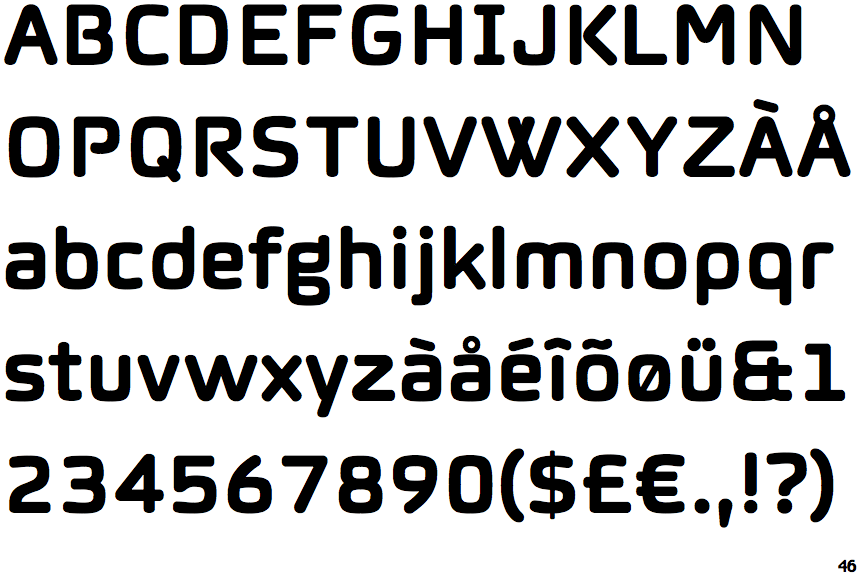
Norway Round Font . Web treat yourself to noway round offered for free by designer atipo ®. Web noway round font family designed by atipo has a total of 2 different styles.
Originally designed as corporate signage typography for london luton airport. Thin, light, regular, medium, bold & italics and a pack of 159 icons for. Web noway round is based on the successful noway font family.
Web treat yourself to noway round offered for free by designer atipo ®. Web noway round font family designed by atipo has a total of 2 different styles. Noway round is based on the successful noway font family. Moreover, you can embed it to your website with @font.
Norway Round Font - Web treat yourself to noway round offered for free by designer atipo ®. Noway round is based on the successful noway font family. Originally designed as a corporate and signage typeface for london luton airport. Thin, light, regular, medium, bold & italics and a pack of 159 icons for. Originally designed as corporate signage typography for london luton airport.
Norway Round Font - Originally designed as a corporate and signage typeface for london luton airport. Thin, light, regular, medium, bold & italics and a pack of 159 icons for. Moreover, you can embed it to your website with @font. Web noway round is based on the successful noway font family. Web treat yourself to noway round offered for free by designer atipo ®.
Norway Round Font - Originally designed as a corporate and signage. Noway round is based on the successful noway font family. Thin, light, regular, medium, bold & italics and a pack of 159 icons for. Web treat yourself to noway round offered for free by designer atipo ®. Web noway round is based on the successful noway font family.
Norway Round Font - Originally designed as a corporate and signage. Noway round is based on the successful noway font family. You can download the noway round font to your computer or. Thin, light, regular, medium, bold & italics and a pack of 159 icons for.
Norway Round Font - Originally designed as a corporate and signage typeface for london luton airport. Noway round is based on the successful noway font family. Web treat yourself to noway round offered for free by designer atipo ®. Thin, light, regular, medium, bold & italics and a pack of 159 icons for. Web noway round is based on the successful noway font family.
Norway Round Font - Moreover, you can embed it to your website with @font. Originally designed as a corporate and signage typeface for london luton airport. Web treat yourself to noway round offered for free by designer atipo ®. Originally designed as corporate signage typography for london luton airport. Web noway round font family designed by atipo has a total of 2 different styles.
Norway Round Font - Web noway round is based on the successful noway font family. Originally designed as a corporate and signage. Noway round is based on the successful noway font family. Originally designed as a corporate and signage typeface for london luton airport. Moreover, you can embed it to your website with @font.
Norway Round Font - You can download the noway round font to your computer or. Web noway round is based on the successful noway font family. Originally designed as a corporate and signage. Originally designed as a corporate and signage typeface for london luton airport. Web noway round is based on the successful noway font family.
Norway Round Font - Originally designed as a corporate and signage. Noway round is based on the successful noway font family. You can download the noway round font to your computer or. Originally designed as corporate signage typography for london luton airport. Moreover, you can embed it to your website with @font.
Norway Round Font - Moreover, you can embed it to your website with @font. Originally designed as a corporate and signage. Originally designed as a corporate and signage typeface for london luton airport. Originally designed as corporate signage typography for london luton airport. Web noway round is based on the successful noway font family.
Norway Round Font - Web noway round is based on the successful noway font family. You can download the noway round font to your computer or. Originally designed as a corporate and signage. Thin, light, regular, medium, bold & italics and a pack of 159 icons for. Originally designed as a corporate and signage.
Norway Round Font - You can download the noway round font to your computer or. Web noway round is based on the successful noway font family. Thin, light, regular, medium, bold & italics and a pack of 159 icons for. Web noway round font family designed by atipo has a total of 2 different styles. Originally designed as a corporate and signage.
Norway Round Font - Noway round is based on the successful noway font family. Originally designed as corporate signage typography for london luton airport. Originally designed as a corporate and signage typeface for london luton airport. Web noway round is based on the successful noway font family. Web treat yourself to noway round offered for free by designer atipo ®.